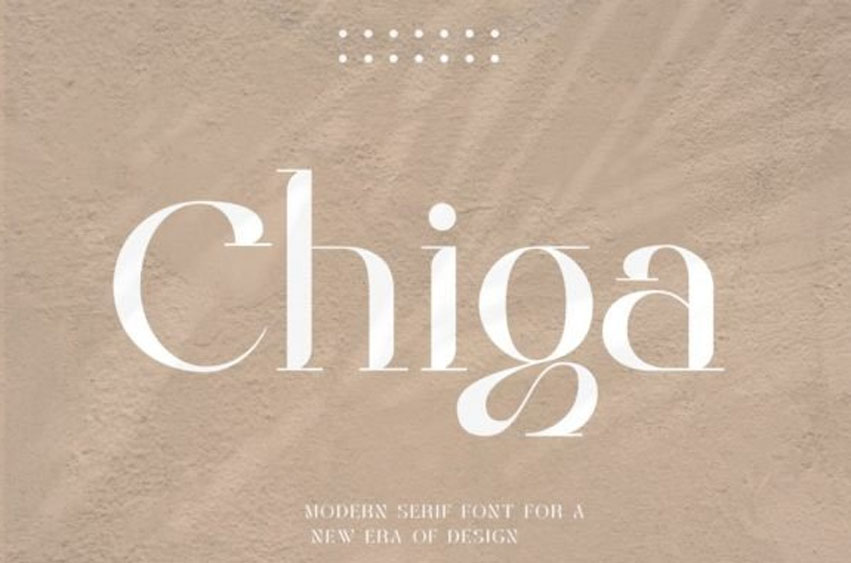
Chiga Font stands out? Chiga is the answer! This modern serif font features unique curves on every letter and clean, straight strokes that give it a distinctive, eye-catching character.
Chiga is ideal for branding, posters, and other professional projects. This font is not only elegant and unique but also easy to read. Chiga is sure to make an impact.